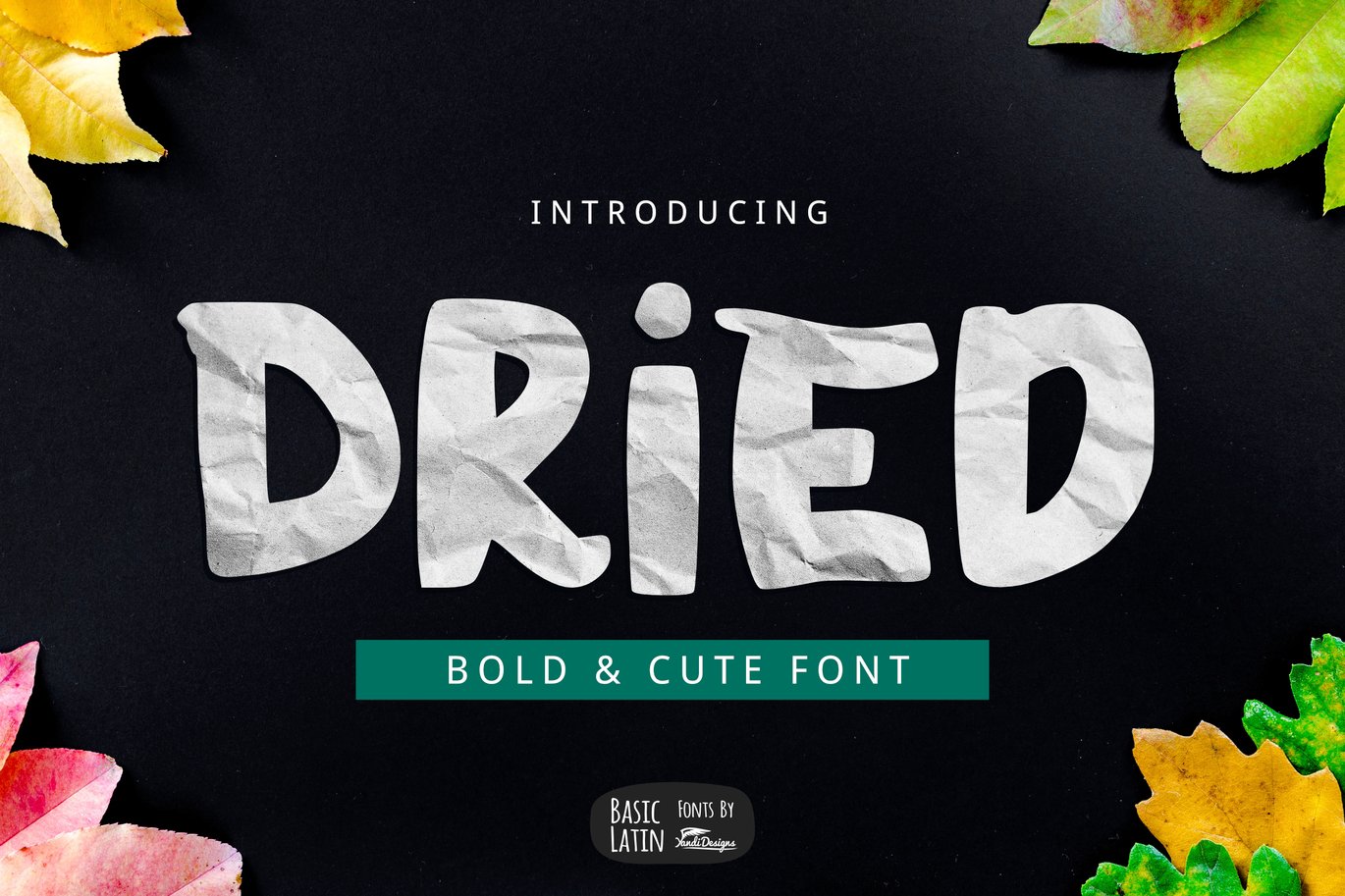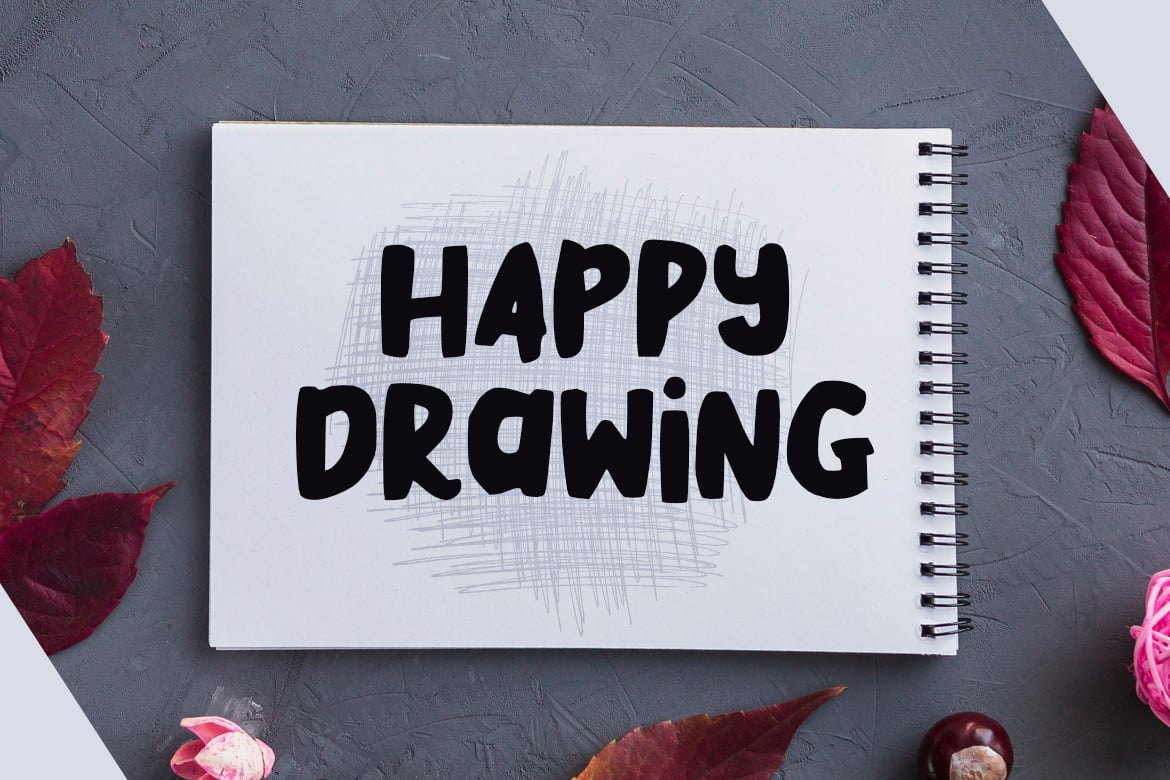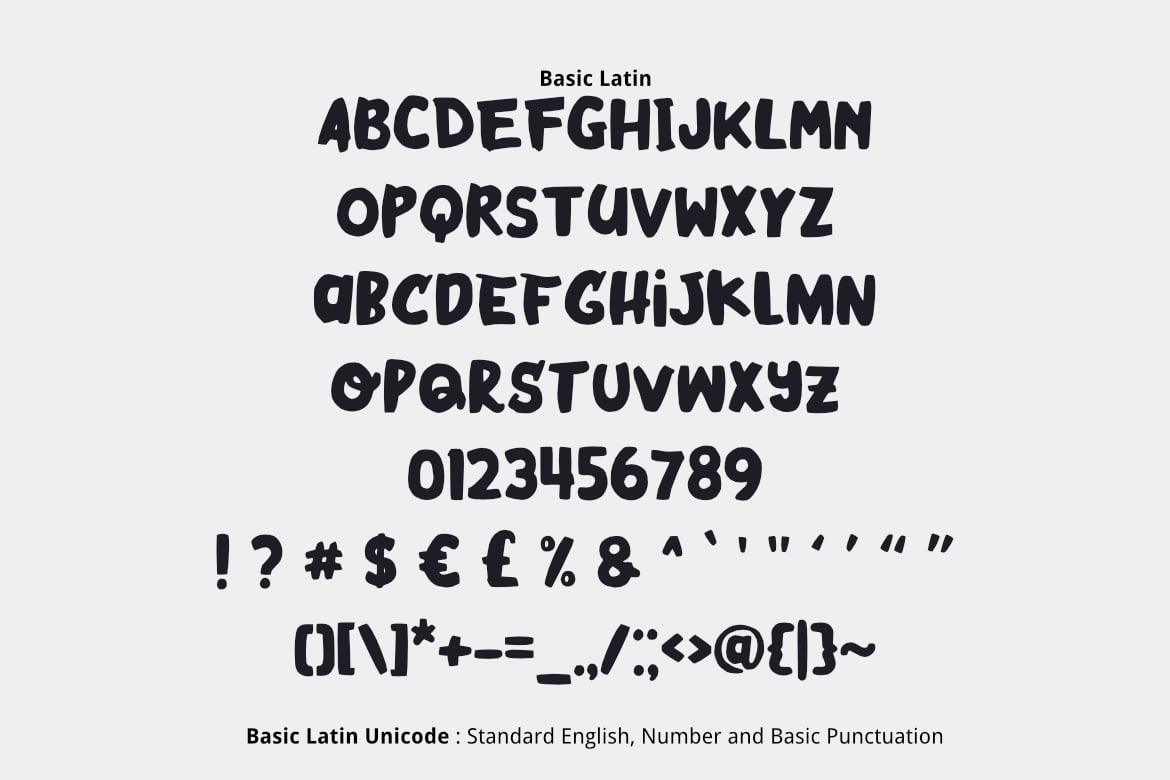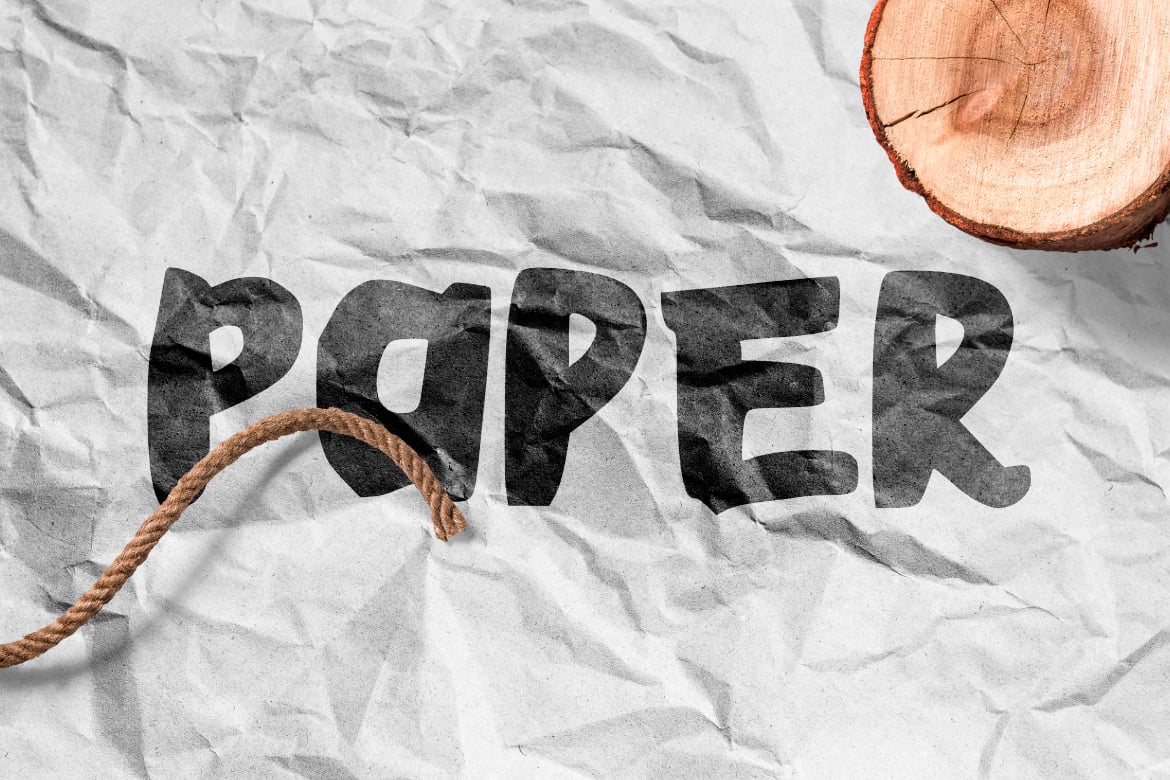
Dried Bold Font
Simple bold and cute multipurpose font , suitable for many project children book, quotes, logo , heading , title etc.
Basic Latin (Standard English character , number, symbol)